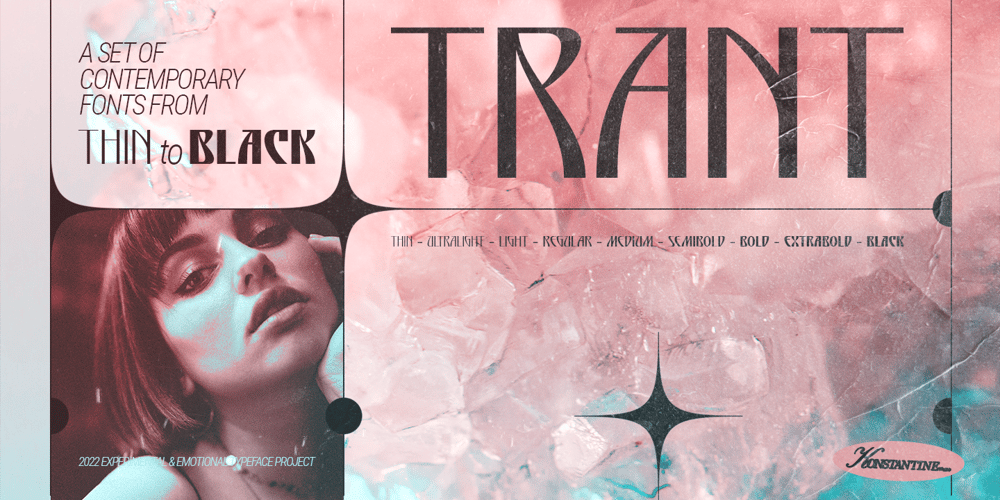
Trant
Trant font
Trant Font Family was designed by Abdilah and published by Konstantine Studio. Trant contains 9 styles and family package options. Fashion is a statement, and so do fonts.Push yourself to the breakthrough of the visual trend with TRANT. An experimental display font, with the elegant slick yet glamorous vibes in every letter.Carefully tailored with reference to the couture fashion, implemented as ready-to-wear stuff in the form of the typeface.